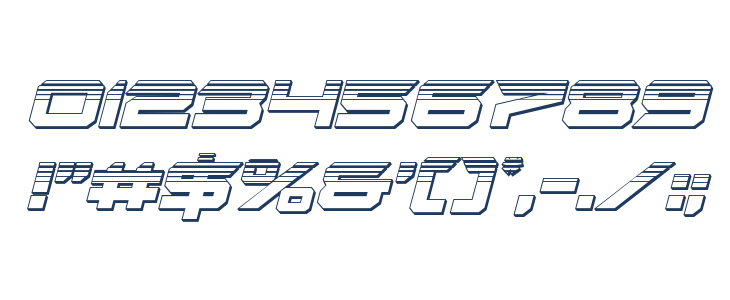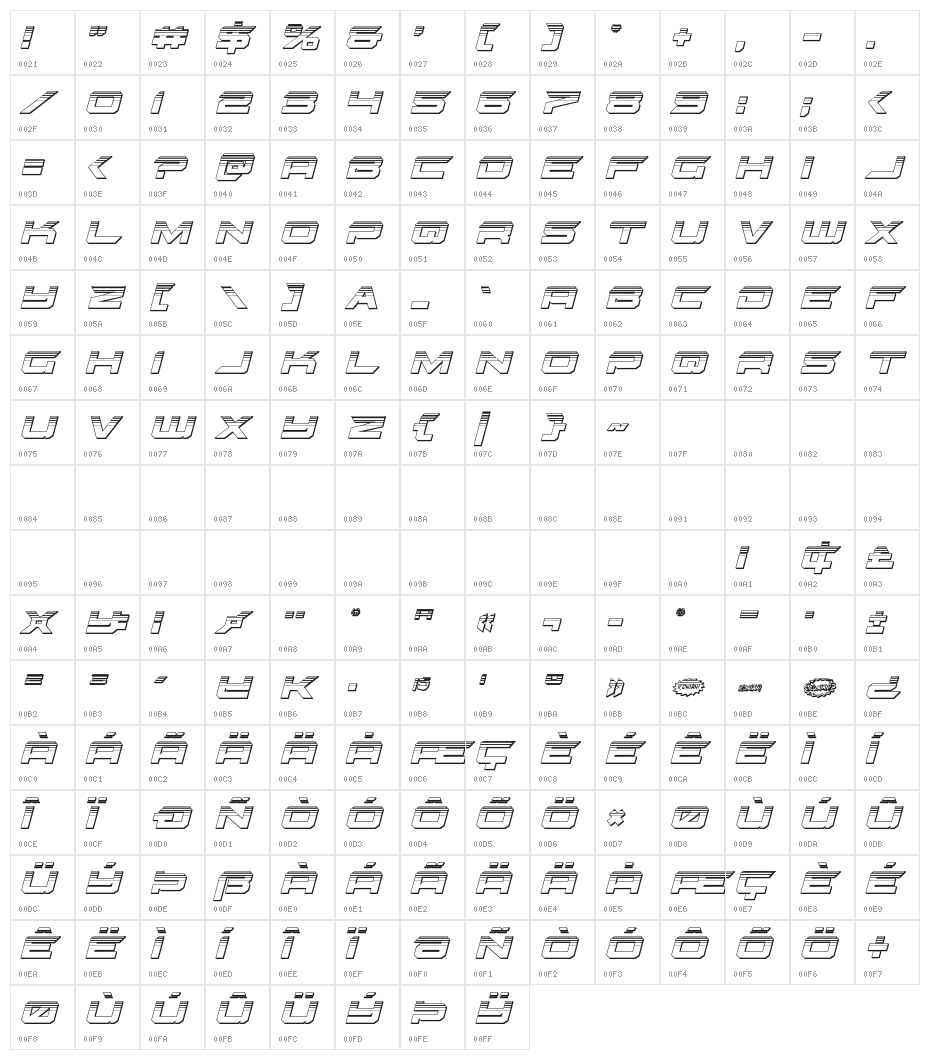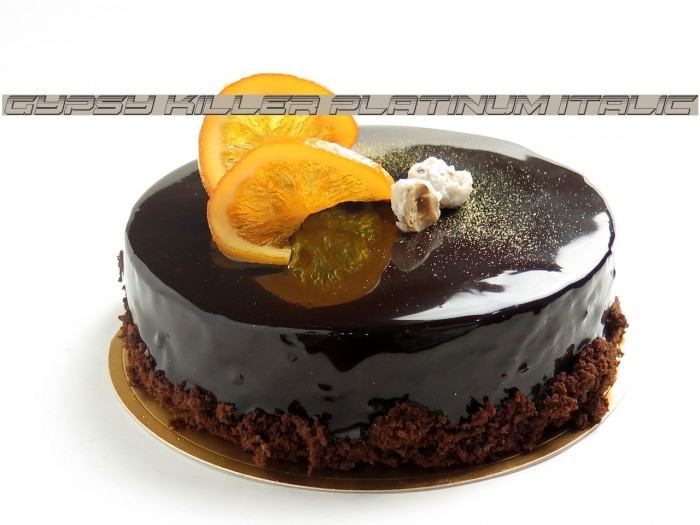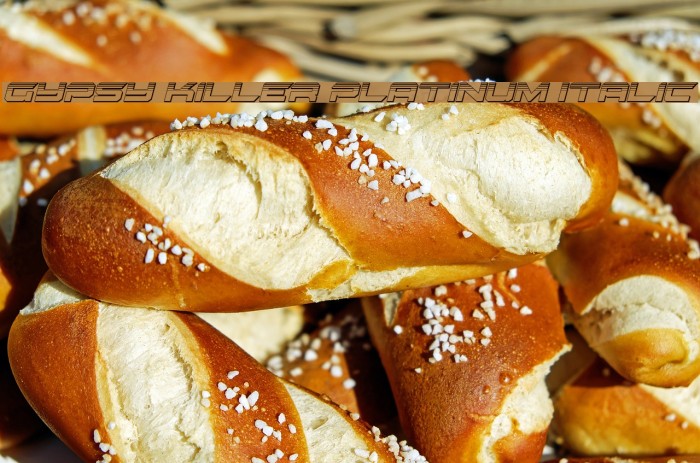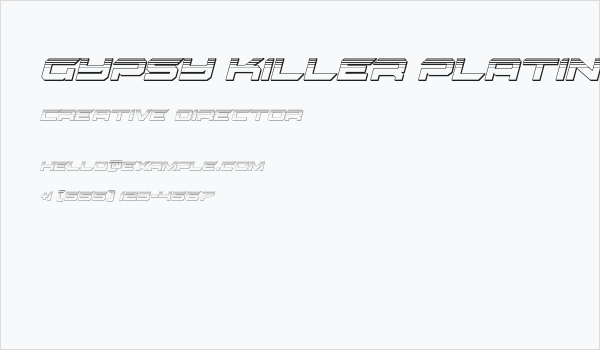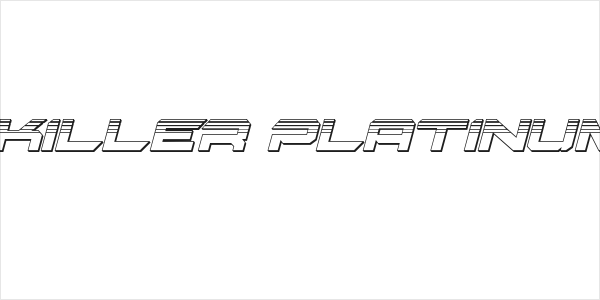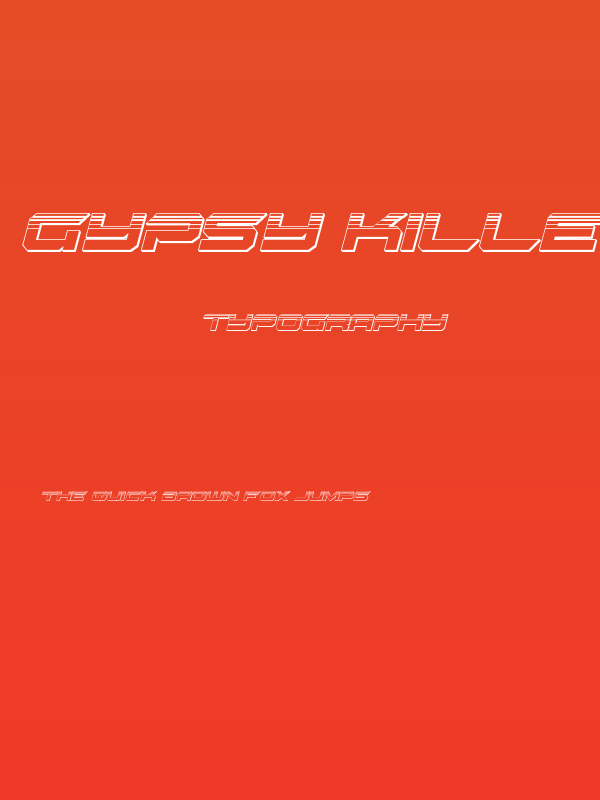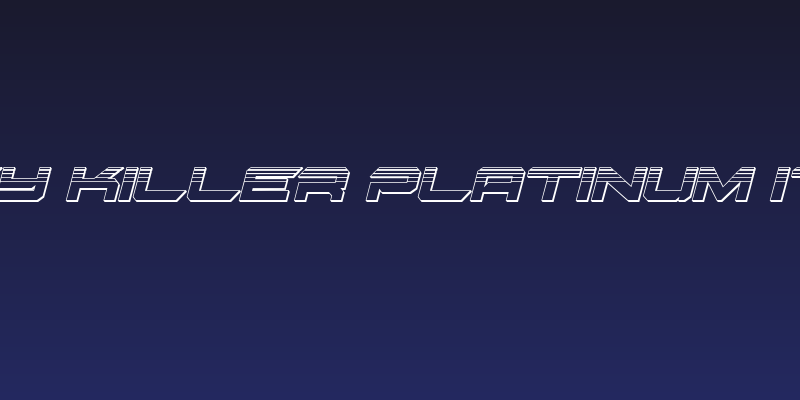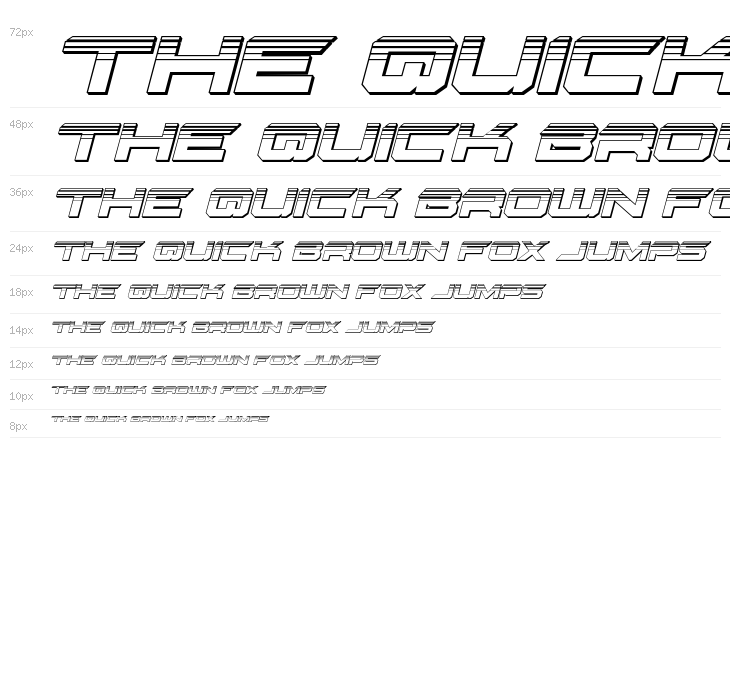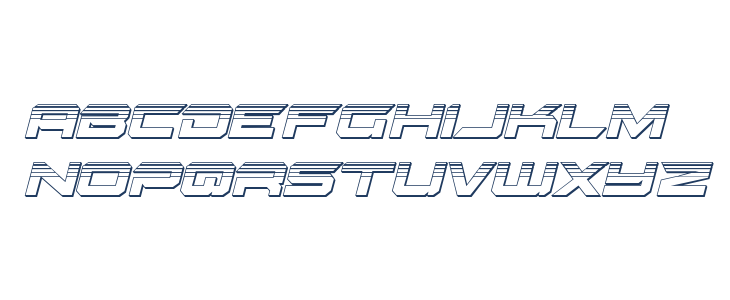
Gypsy Killer Platinum Italic Font
Gypsy Killer Platinum Italic Description
This font features a bold, futuristic design with a distinct italic slant, giving it a dynamic and energetic appearance. The characters are outlined with a double line, creating a sense of depth and dimension. The angular, geometric shapes of the letters convey a modern and edgy aesthetic, making it ideal for projects that require a strong visual impact. The uppercase and lowercase letters maintain a consistent style, while the numerals and special characters complement the overall design. The font's unique style makes it suitable for creative and contemporary applications.
| Proposed Projects | Ideal for sci-fi themed posters, video game titles, tech branding, and modern advertising. |